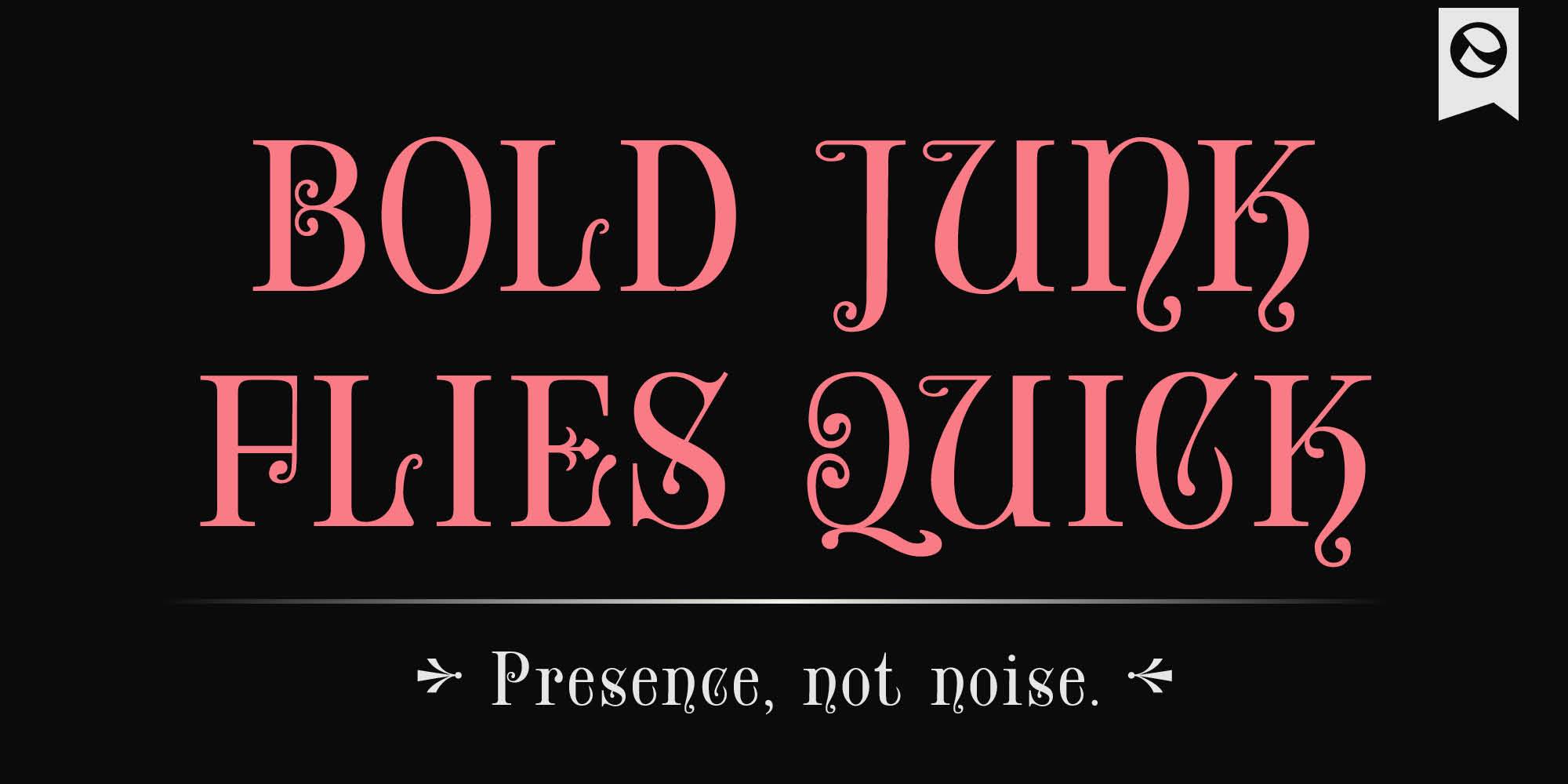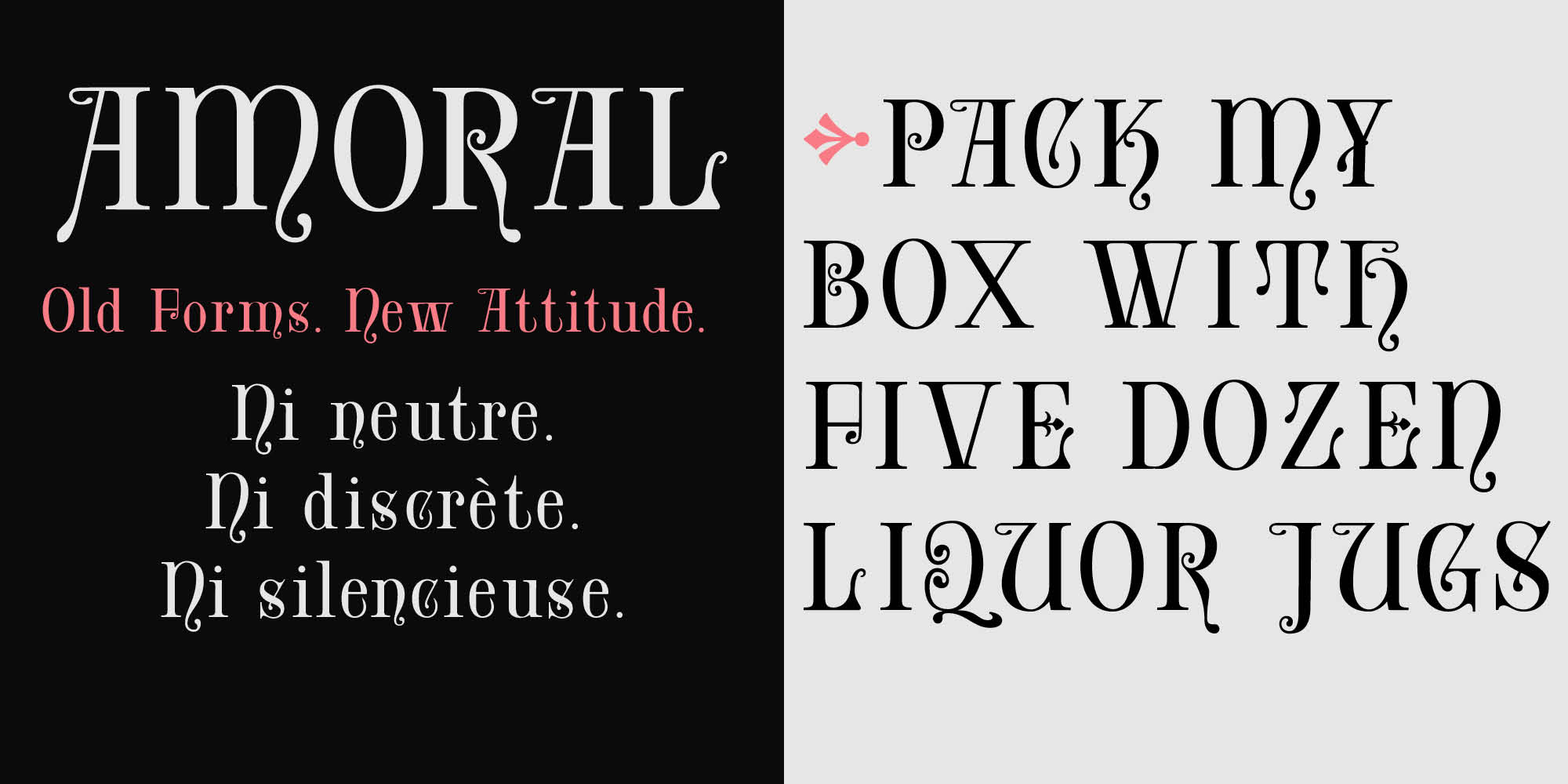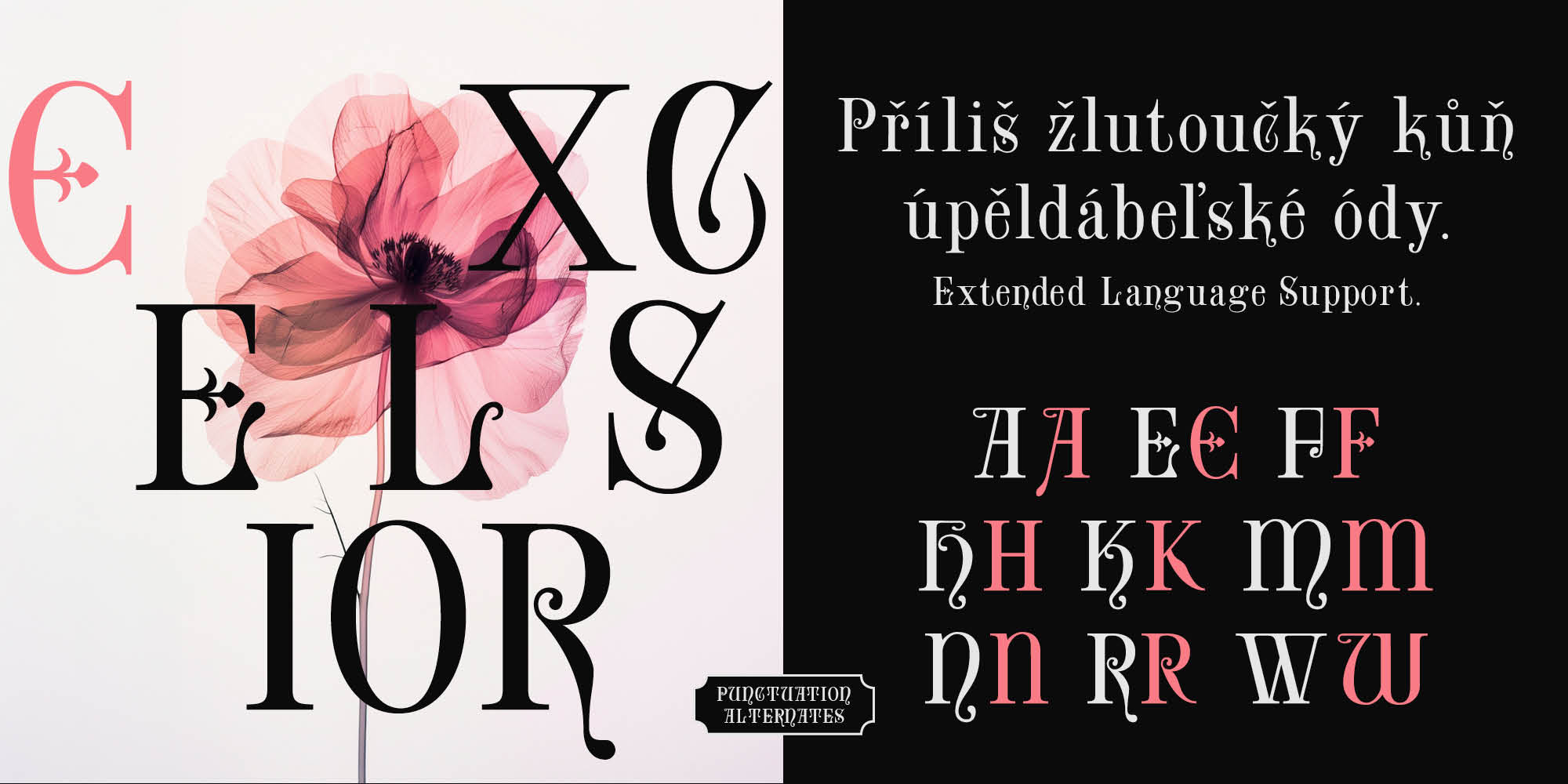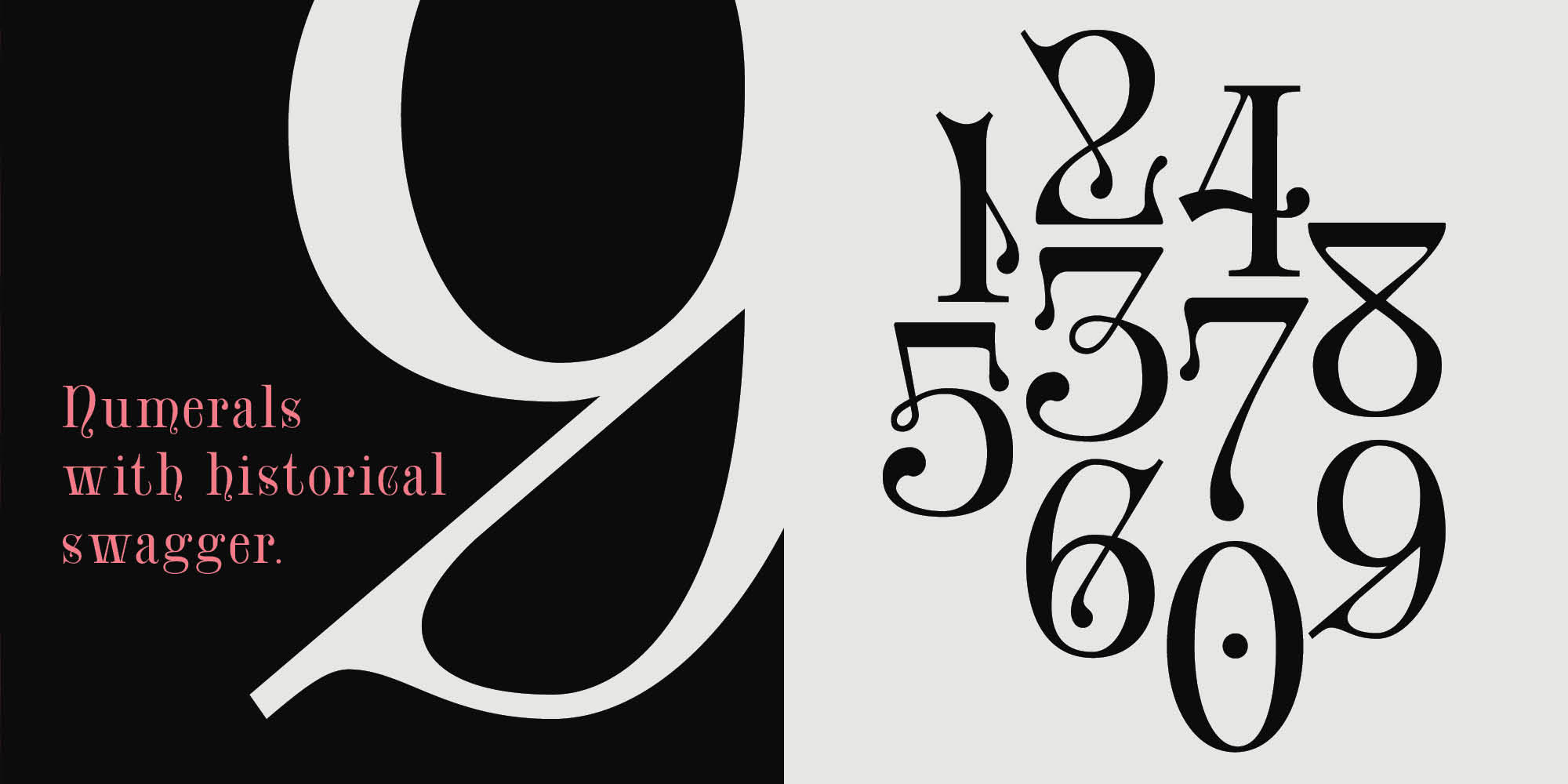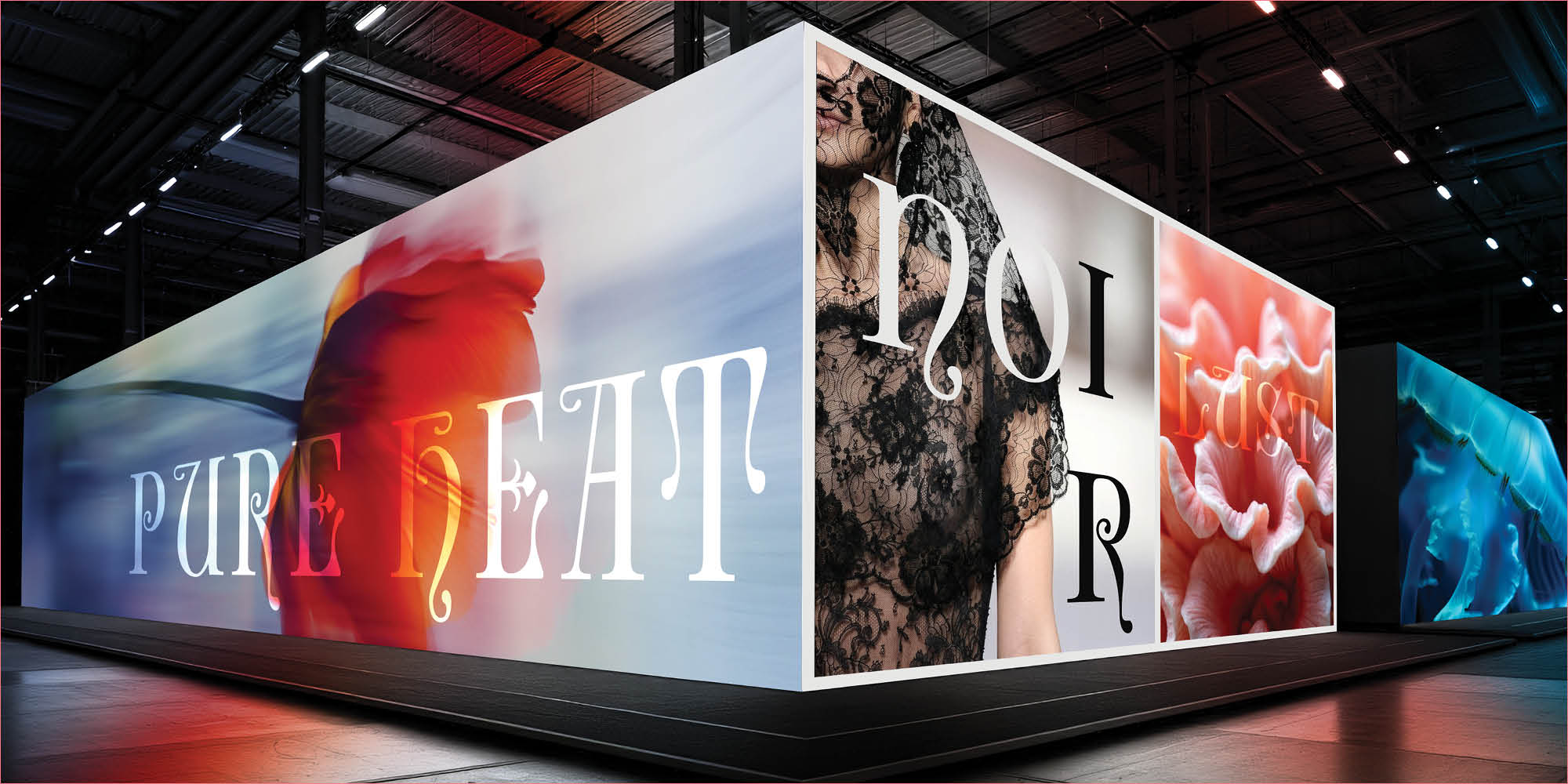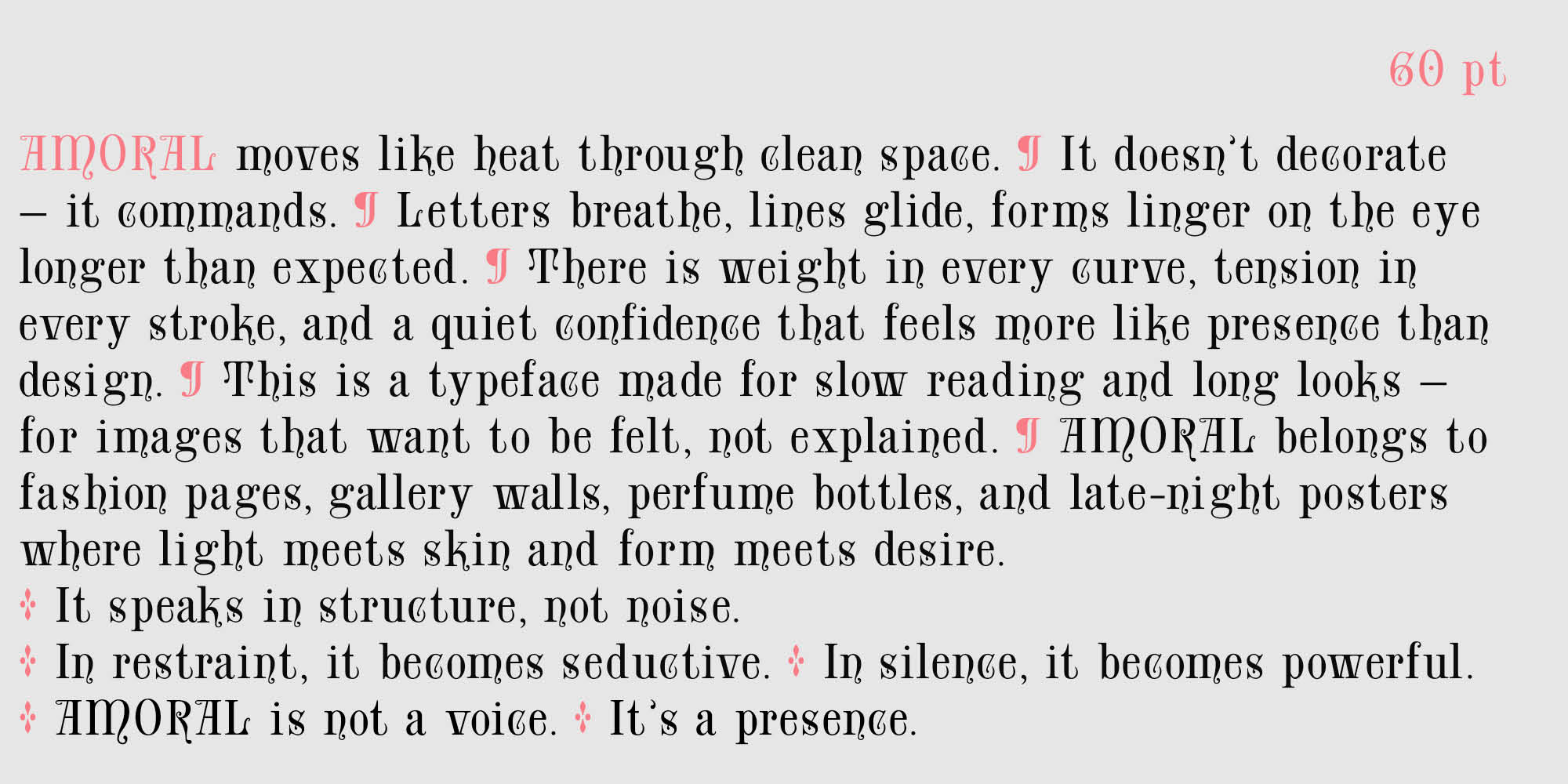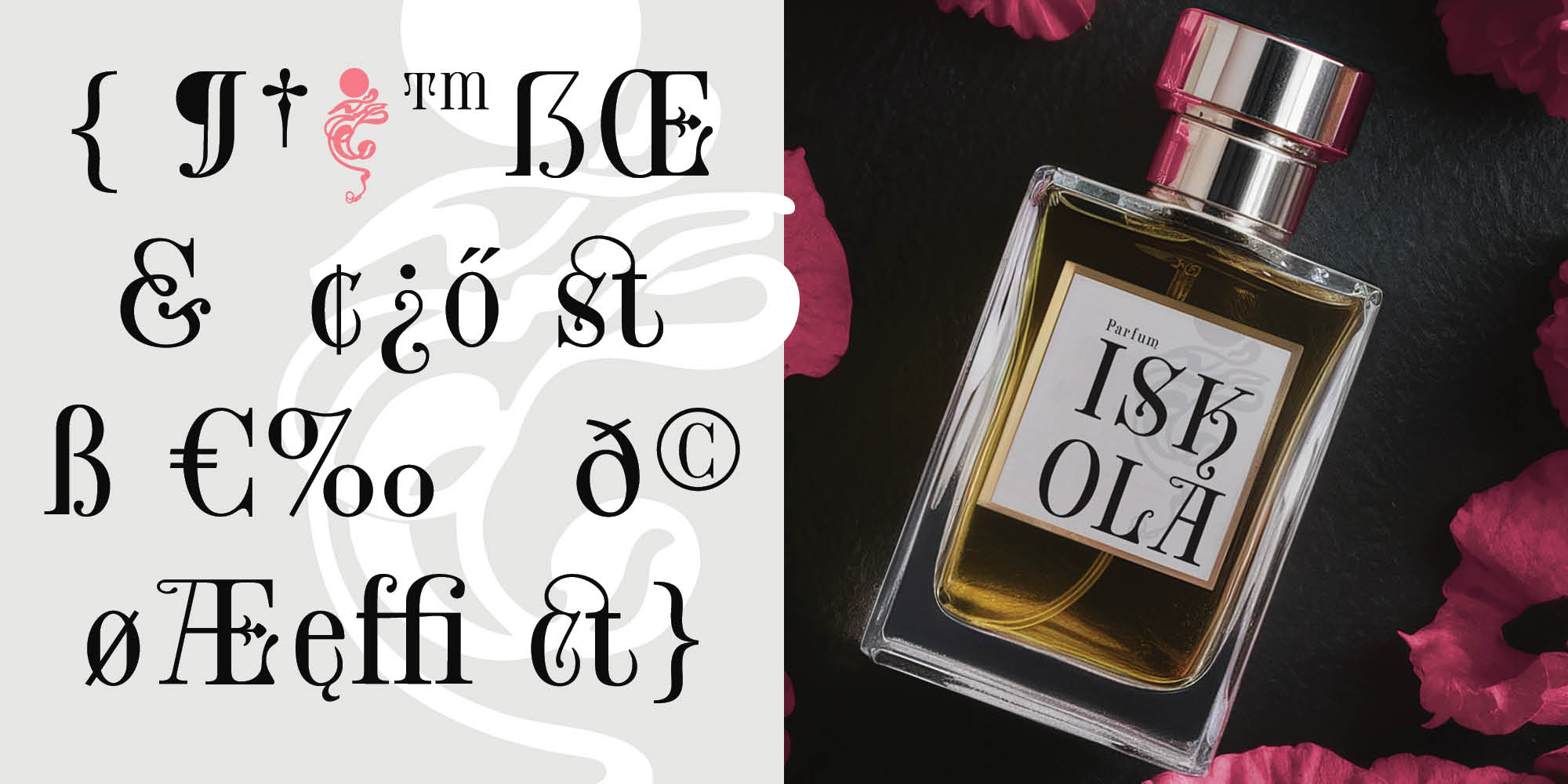
Some letters have a past worth tracing.
In 1888, Cincinnati Type Foundry issued a display face called Armoral. By 1900, it had quietly crossed the Atlantic and appeared in the specimen catalogue of Budapest’s Hornyánszky Viktor printing house — renamed Excelsior, as if it had always been Hungarian.
It was from that Budapest source that Amondó recut it in 2002, named it Iskola, and released it through T-26 in Chicago. The letter had come full circle — back to America — without anyone knowing it had started there.
The 1888 Cincinnati Type Foundry specimen only surfaced years later.
Amoral is what happens when you find the beginning after you’ve already told the story twice. Not a cleanup of Iskola, not a digitization of the original — a second recut with full knowledge of the whole chain. Letterforms tightened, rhythm recalibrated, the peculiar numerals and alternates preserved, because that’s where the character lives.
One weight. Everything it needs.
Headlines · Posters · Book jackets · Album covers · Brand identity
Amoral
Iskola (2002, T-26) — Amoral’s predecessor, still in the wild.